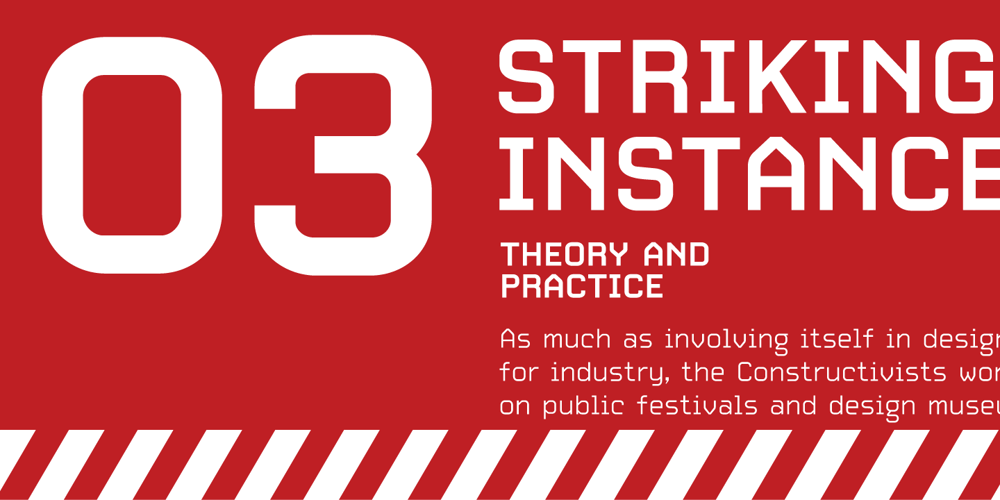
CarbonPlus Font Family was designed by Anuthin Wongsunkakon and published by Cadson Demak. CarbonPlus contains 3 styles and family package options. The original Carbon is a popular face at T26. It was released in 2003 under influence of modern typewriter and OCR typeface. Carbon Plus, a re-work version, was commissioned by local communication technology firm and is now available for commercial release. This revised version was designed with more sensible letter forms in order to add some human touch to the face. The initial release of this font also known as Carbon C6.